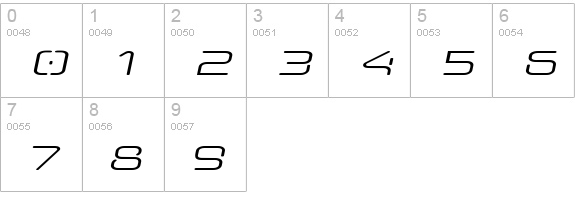
Aunchanted Expanded Oblique is a distinctive, extended-width, italic variant in the Aunchanted typeface family \xE2\x80\x94 well suited to design and typography projects.
Aunchanted Expanded Oblique font is a captivating and whimsical typeface that adds a touch of magic to any design project. With its unique slanted style and enchanting curves, this font is perfect for creating eye-catching headlines, posters, and branding materials. The graceful letterforms of Aunchanted Expanded Oblique will transport your audience to a world of fantasy and imagination. This font is not only visually stunning but also highly versatile, making it suitable for a wide range of design applications. Whether you're working on a children's book, a fantasy-themed website, or a mystical event invitation, Aunchanted Expanded Oblique is sure to bring your creative vision to life. Best of all, this font is available for free download at FontsMarket.com, allowing you to easily incorporate its magic into your projects without any cost. Don't miss out on the opportunity to add a touch of enchantment to your designs with Aunchanted Expanded Oblique font. Download it today and let your creativity soar!